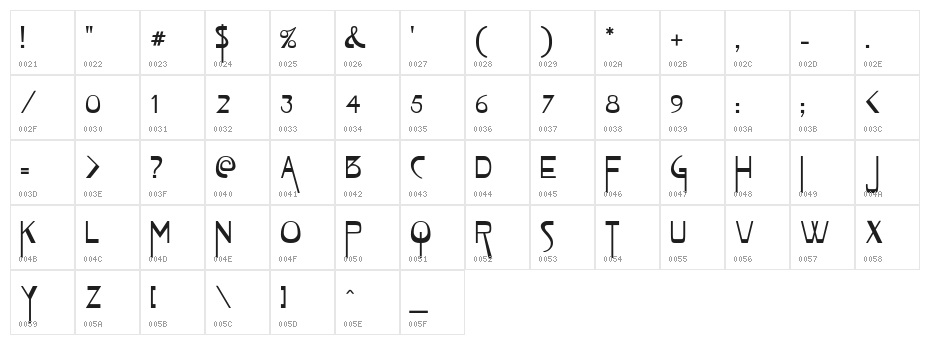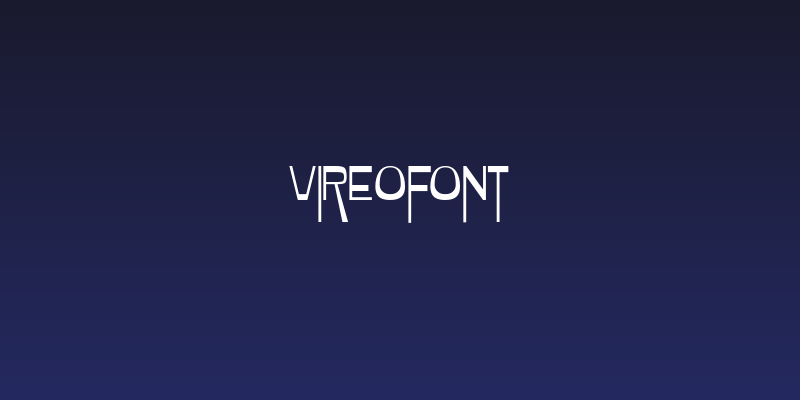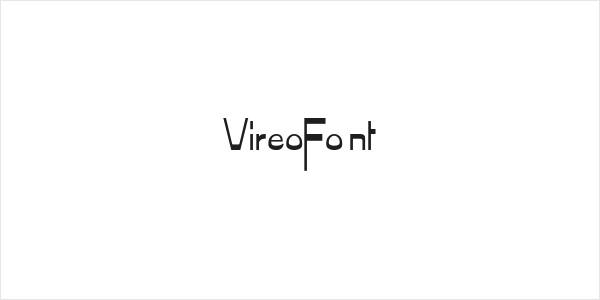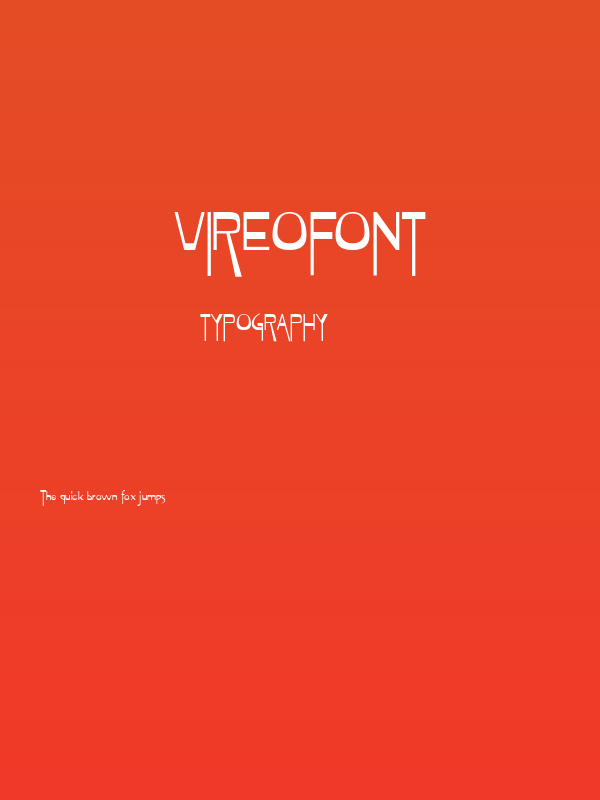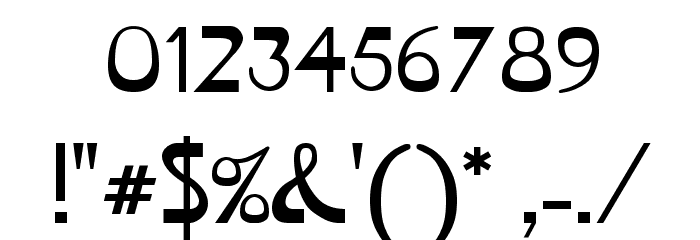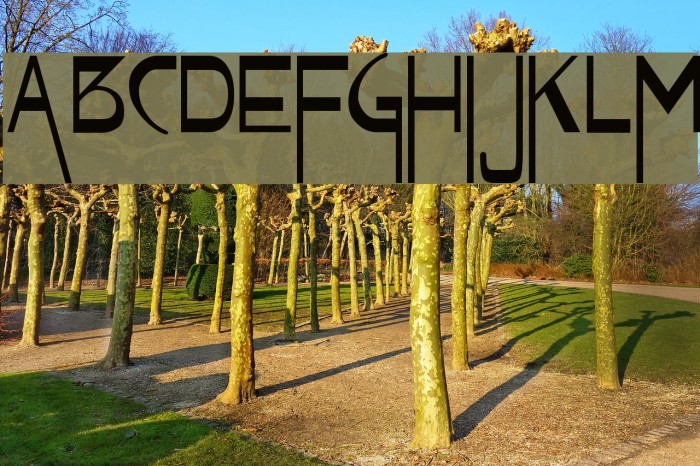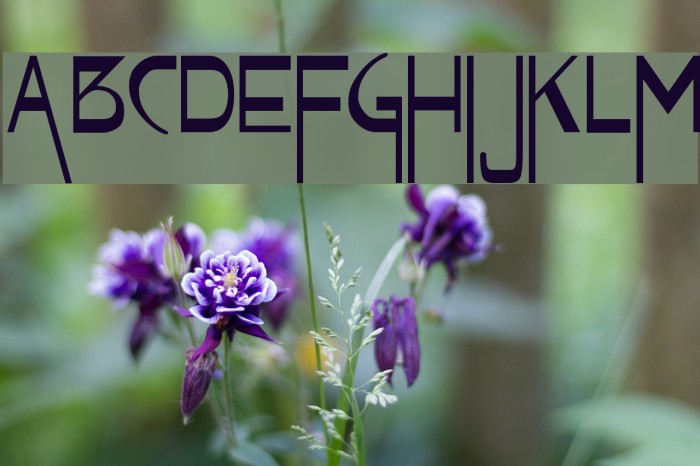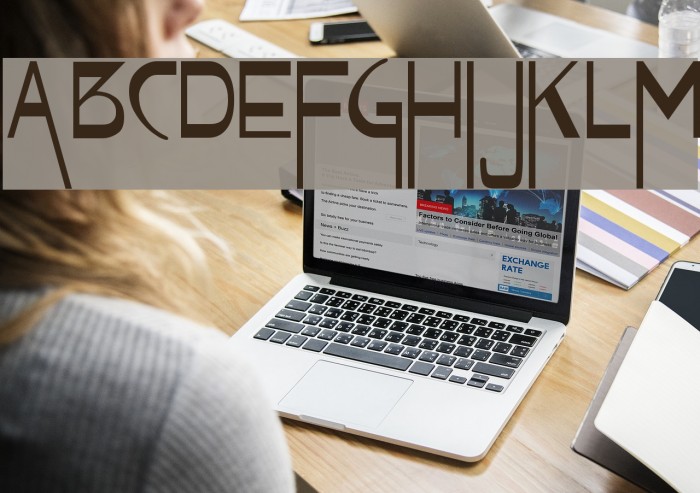
VireoFont Font
VireoFont Description
This font features a unique and modern design with elongated vertical lines and sharp angles, giving it a futuristic and avant-garde appearance. The uppercase letters are particularly striking, with some characters like 'A', 'R', and 'Y' showcasing extended vertical strokes that add to the font's distinctiveness. The lowercase letters maintain a cohesive style, with a slightly more rounded approach, yet still retaining the sharpness seen in the uppercase set. Numbers are clear and consistent, matching the overall aesthetic. Special characters are well-integrated, ensuring versatility in various design applications.
| Proposed Projects | Ideal for futuristic branding, sci-fi themed projects, modern posters, and innovative product packaging. |